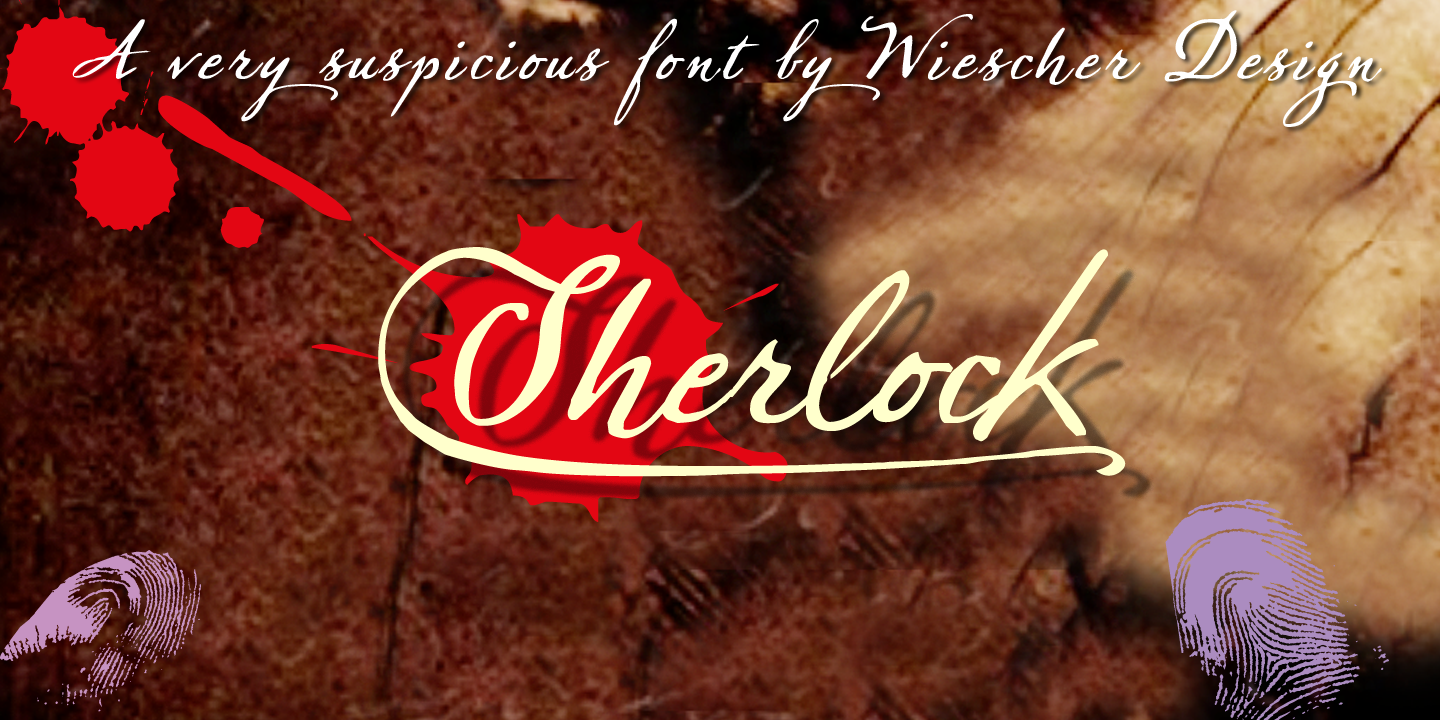
This elegant script typeface is perfect for invitations, logos, branding, posters, and social media graphics.
The Sherlock Script Font is exciting because its mysterious, versatile design with swashes and alternate capitals offers a sophisticated, handcrafted aesthetic for unique projects.
Its font family includes Sherlock Script 1–7, with variations like alternate capitals, small caps, and embellishments (Dots, Lines, Fingerprints), totaling 12 styles for creative flexibility.
Searching for a font that adds a touch of mystery and elegance to your designs? Sherlock Script Font Free Download is an ideal choice for designers seeking a sophisticated script typeface. Designed by Gert Wiescher and published by Wiescher Design in 2014, this font family is described as a “mysterious script, always on the lookout for the killer-design-project.” With 807 glyphs in its Pro version, it supports European languages, including Vietnamese, making it perfect for both digital and print projects like invitations and branding.
The Sherlock Script Font excels in applications requiring a refined, handcrafted look. It’s a top choice for wedding invitations, where its flowing, alternate capitals and swashes create a romantic vibe. Designers use it for logos, adding a unique flair to boutique or luxury brands. Posters for events or promotions benefit from its elegant, mysterious style. Social media creators leverage it for Instagram posts, TikTok overlays, or YouTube thumbnails, enhancing engagement with its distinctive charm. Its versatility also suits packaging and signage, evoking sophistication.
What makes the Sherlock Script Font Free Download so captivating is its flexibility as a joining or non-joining script, with extensive OpenType features like ligatures, alternate lowercase letters, and old-style numbers. The Pro version is ideal for professionals using tools like Adobe Illustrator or InDesign, while the standard version includes 10 single files (Sherlock Script 1–7, Stuff 1–3 for Dots, Lines, and Fingerprints) for broader accessibility. Available in OpenType format, it supports @font-face for web embedding, ensuring seamless online use.
The Sherlock Script Font family includes Sherlock Script 1 (normal), 2 (alternate capitals with small caps), and 3–7 (varied capitals with understrokes and lowercase swings), plus embellishments for creative accents.